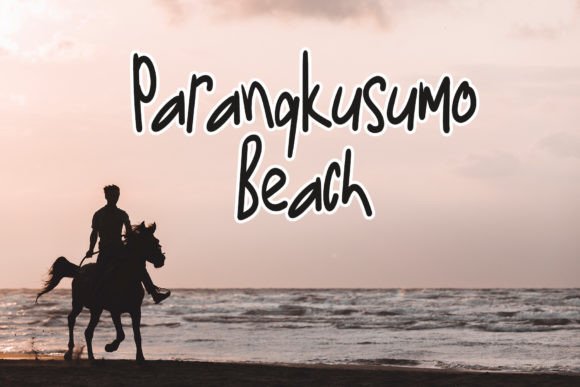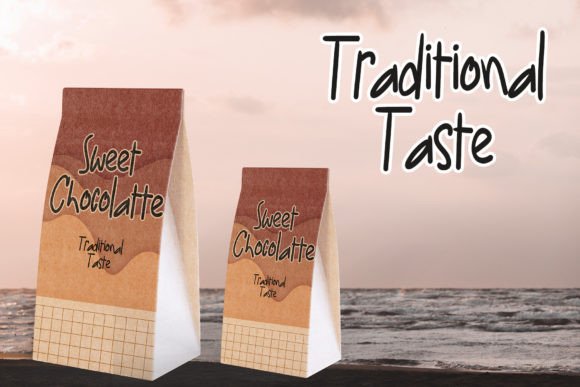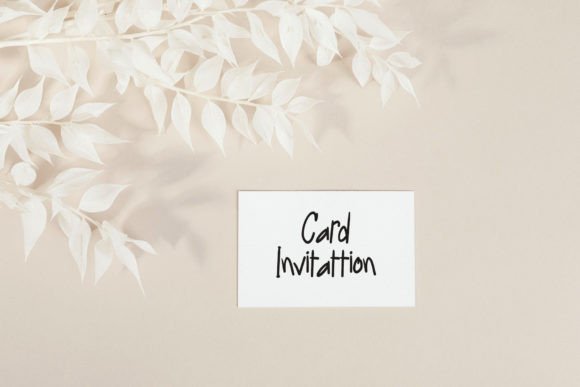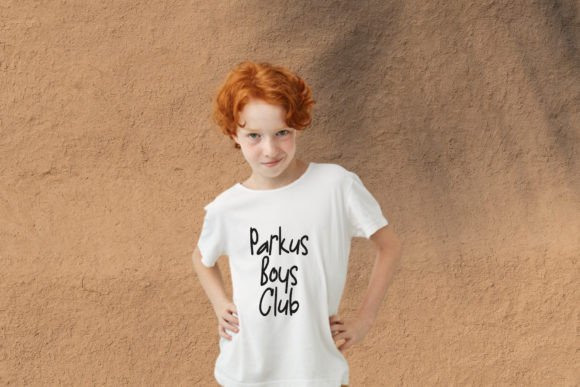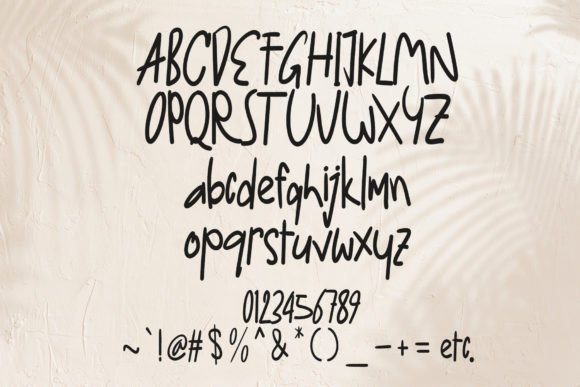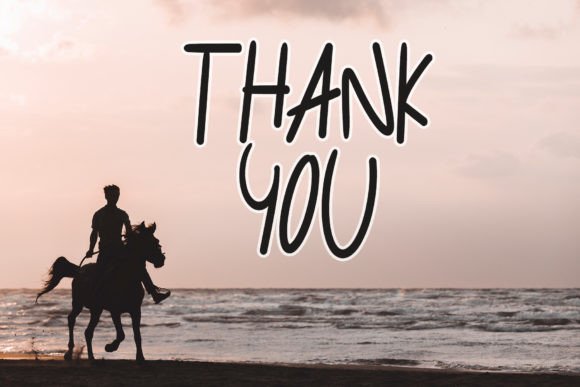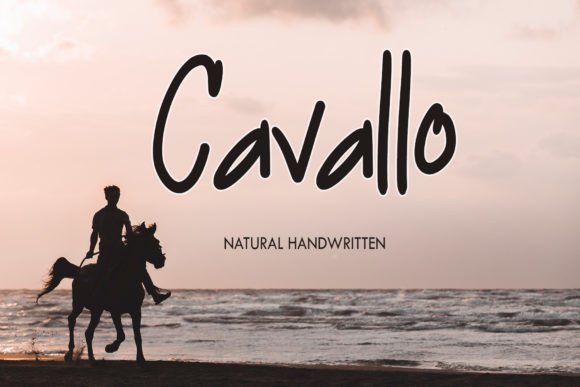
Cavallo Font: Elevate Your Design Projects with a Unique Graffiti Style
Are you tired of using the same old fonts for your design projects? Look no further than Cavallo Font, a unique handwritten font with a graffiti style that’s sure to take your designs to the next level. Whether you’re working on branding, headings, invitations, signatures, logotype, wall art illustration, apparel, labels, or any other project, Cavallo Font is the perfect choice.
What is Cavallo Font?
Cavallo Font is a one-of-a-kind handwritten font that’s been carefully crafted to give your designs a bold, edgy look. With its graffiti style, this font is perfect for designers and crafters who want to add a touch of personality to their work. The font is highly versatile and can be used for a wide range of projects, from logos and branding to invitations and wall art.
Features of Cavallo Font
- Unique Graffiti Style: Cavallo Font boasts a distinctive graffiti style that’s sure to make your designs stand out from the crowd.
- Handwritten: This font has a personal, handwritten feel that’s perfect for adding a touch of personality to your designs.
- Highly Versatile: Whether you’re working on branding, headings, invitations, signatures, logotype, wall art illustration, apparel, labels, or any other project, Cavallo Font is the perfect choice.
- Easily Readable: Despite its bold, edgy style, Cavallo Font is highly readable, making it perfect for use in a wide range of design projects.
How to Use Cavallo Font
Cavallo Font is incredibly easy to use and can be incorporated into a wide range of design projects. Here are just a few ideas to get you started:
- Branding: Use Cavallo Font to create bold, eye-catching logos and branding materials that will help your business stand out.
- Headings: Add a touch of personality to your headings and titles with Cavallo Font.
- Invitations: Create unique and stylish invitations for parties, weddings, and other special events.
- Signatures: Add a personal touch to your email signatures or artwork with Cavallo Font.
- Logotype: Use Cavallo Font to create custom logotypes that will help your business or brand stand out.
- Wall Art Illustration: Create stunning wall art illustrations using Cavallo Font and your own unique designs.
- Apparel: Use Cavallo Font to create custom t-shirts, hoodies, and other apparel that will make a statement.
- Labels: Add a touch of personality to your product labels or packaging with Cavallo Font.
Benefits of Using Cavallo Font
There are many benefits to using Cavallo Font in your design projects. Here are just a few:
- Stand Out from the Crowd: With its unique graffiti style, Cavallo Font is sure to make your designs stand out from the crowd.
- Add Personality to Your Designs: Cavallo Font has a personal, handwritten feel that’s perfect for adding a touch of personality to your designs.
- Highly Versatile: Cavallo Font can be used for a wide range of design projects, making it a great addition to any designer’s toolkit.
- Easily Readable: Despite its bold, edgy style, Cavallo Font is highly readable, making it perfect for use in a wide range of design projects.
If you’re looking for a unique and versatile font that will elevate your design projects, look no further than Cavallo Font. With its graffiti style and handwritten feel, this font is perfect for designers and crafters who want to add a touch of personality to their work. Whether you’re working on branding, headings, invitations, signatures, logotype, wall art illustration, apparel, labels, or any other project, Cavallo Font is the perfect choice.